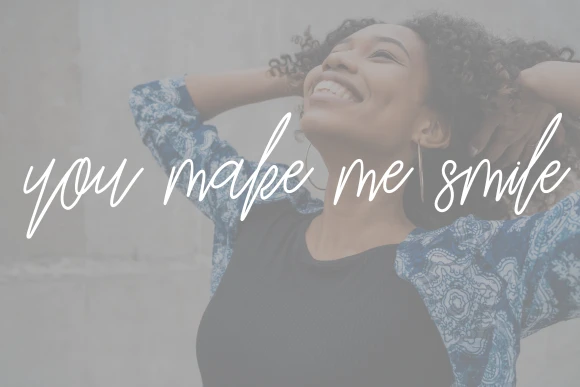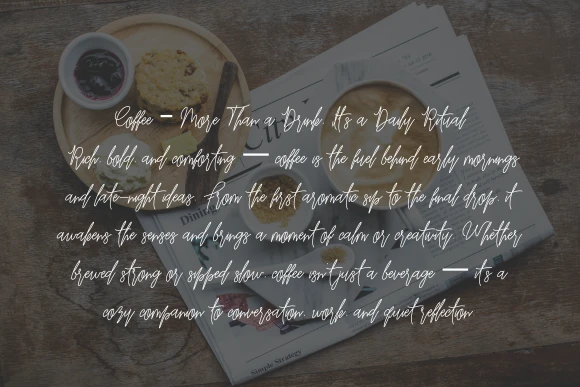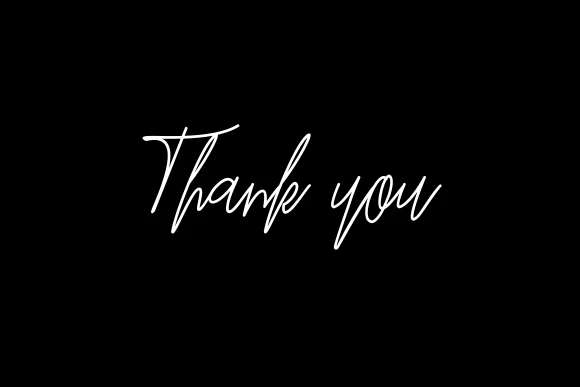
Make a statement with the No Way Home Font, a bold and stylish display typeface perfect for eye-catching designs. Inspired by modern movie-style lettering, this font adds impact and energy to your projects. Ideal for posters, branding, social media graphics, merchandise, and titles, the No Way Home Font delivers a strong, cinematic feel to every design.
High-impact display font with sharp, clean lines
Perfect for posters, movie titles, logos, t-shirts & more